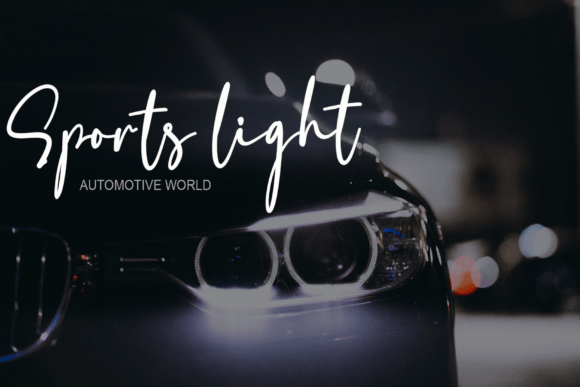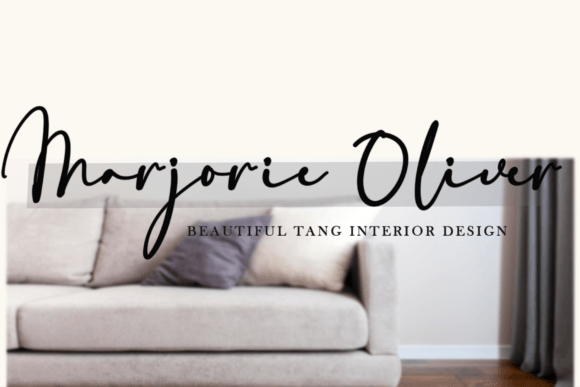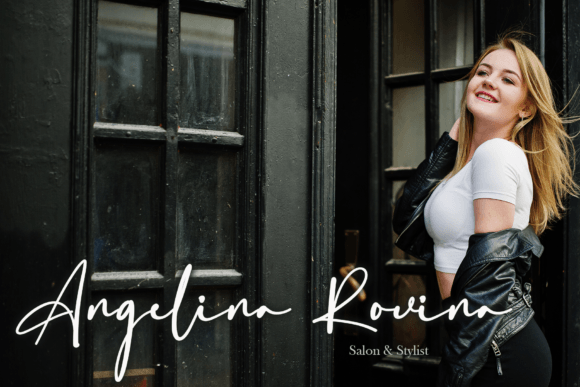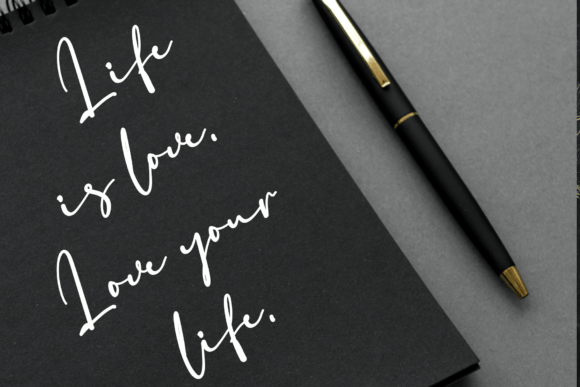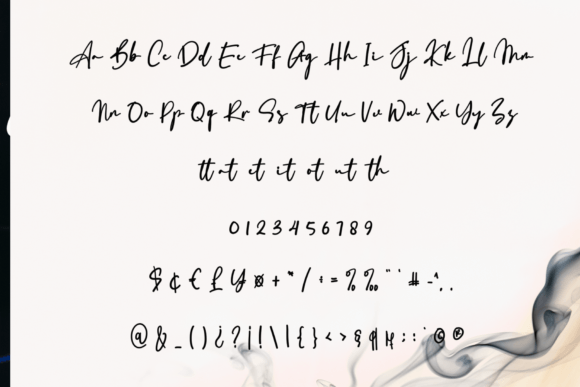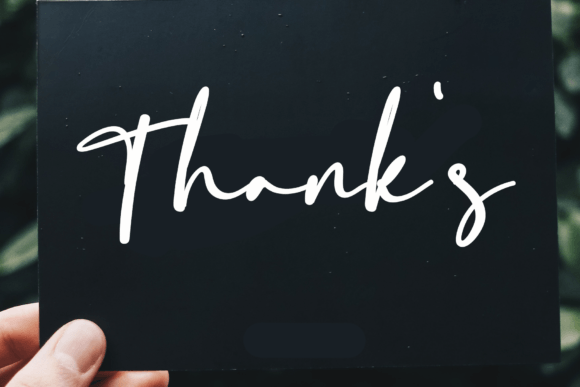
Introduction to Salmonella Font
Have you ever been working on a creative project and suddenly, the perfect font pops into your mind? That’s exactly what happened to me when I discovered the Salmonella Font. It was as if the entire design universe aligned, and I knew I had to share this treasure with fellow designers.
The Salmonella Font is a sweet and beautiful handwritten font that will add a luxury spark to any design project you wish to create. With its elegant characters that dance along the baseline, this font is a valuable resource for any designer looking to elevate their designs. Whether you’re working on a logo, a brochure, or a website, the Salmonella Font is sure to impress.
Key Features of Salmonella Font
- High-quality font design, perfect for creative projects and design resources.
- Includes a range of glyphs and characters, making it suitable for a variety of design applications.
Honest Review: Salmonella Font
As a designer, I’m always on the lookout for unique and high-quality design resources to elevate my creative projects. The Salmonella Font is a great example of a free download that caught my eye. I was excited to give it a try and see how it performs in real-world applications.
- ✨ Unique and quirky design style that adds a touch of personality to any project
- ✨ High-quality vector files that can be easily scaled up or down without losing detail
- ✨ Transparent background makes it easy to combine with other design elements
- ⚠️ Limited character set, which may not be suitable for long-form text projects
- ⚠️ Some characters may not render properly in certain fonts or applications
Overall, I think the Salmonella Font is a great addition to any designer’s toolkit. While it has its limitations, the unique design style and high-quality vector files make it a valuable resource for creative projects. With a little planning and experimentation, you can get the most out of this fun and quirky font.
The Salmonella Font is ideal for use in creative projects, such as presentations, reports, and marketing materials. It’s also a great choice for designers who want to add a unique and eye-catching element to their designs.